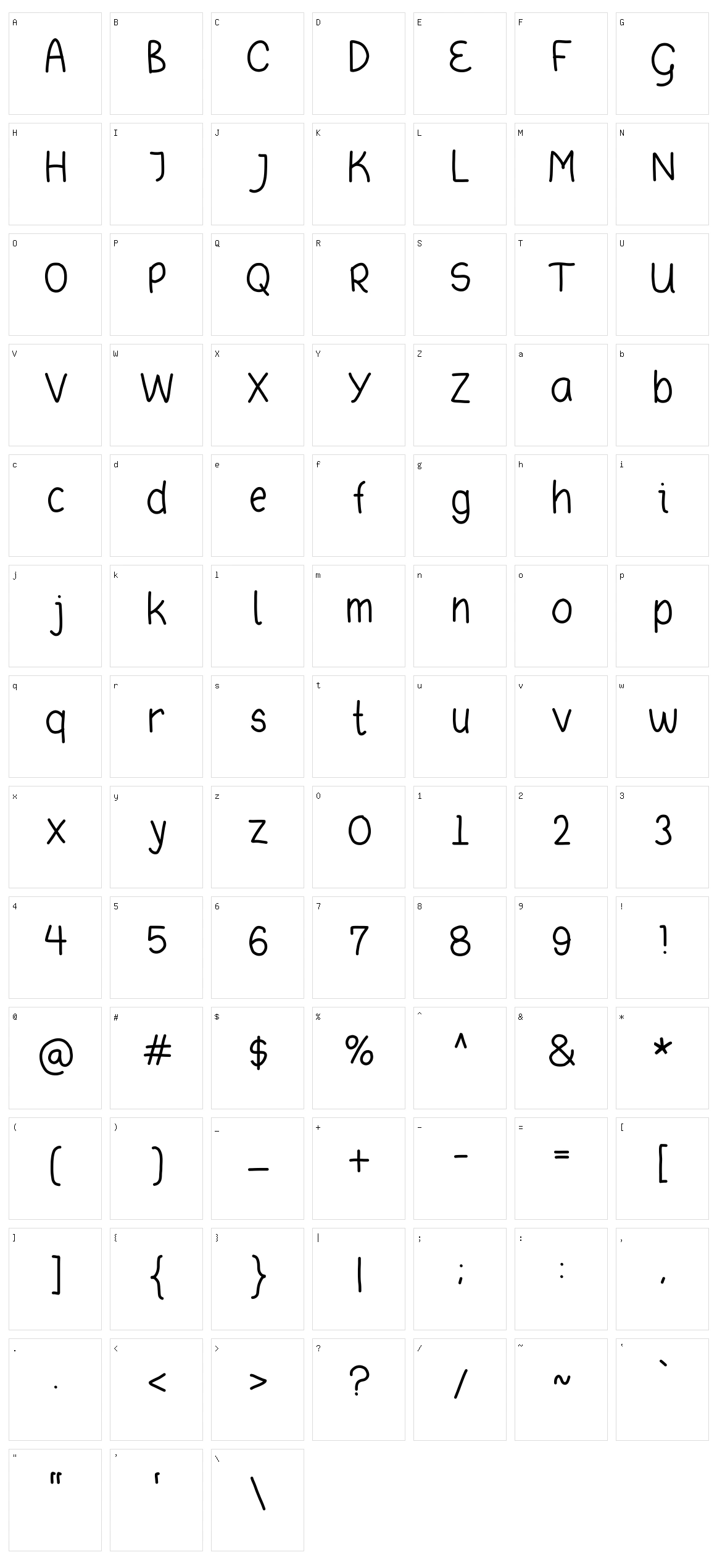
The free font Asdafdasg is carefully designed by J. Toro, showcasing a thoughtful balance of creativity and usability and falls under the Script font style. When you download the ZIP file, it contains only 30.77 KB of font files, making it lightweight and quick to download. Please review the license details below to understand permitted usage and distribution rights. If license information is not available, we recommend using this font for personal projects only or contacting the author directly for commercial usage permissions.
"asdafdasg" was created by Me, using the Android app "InstaFontMaker" by Font.My (https://play.google.com/store/apps/details?id=com.fontogram)